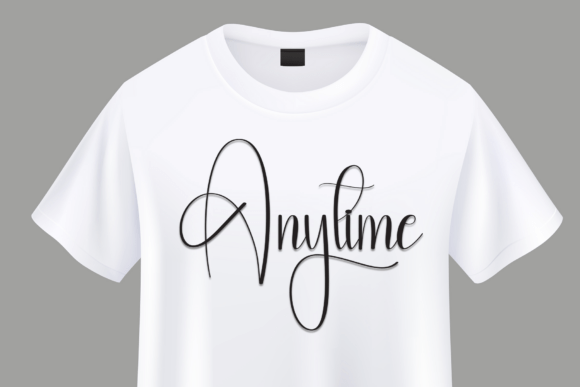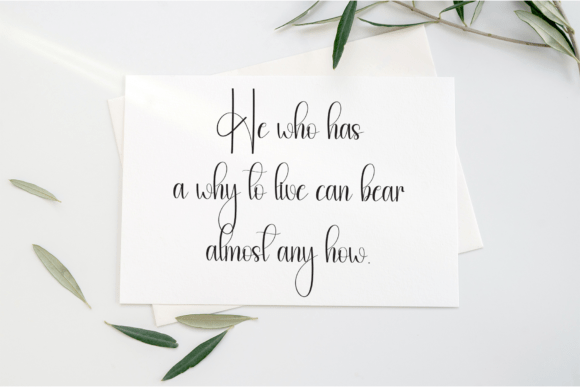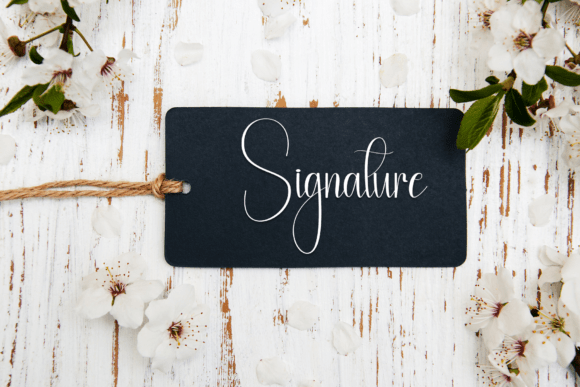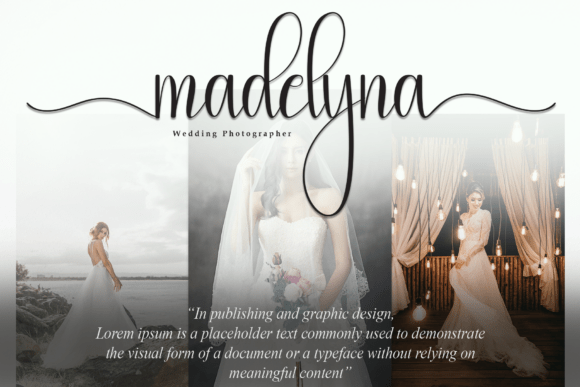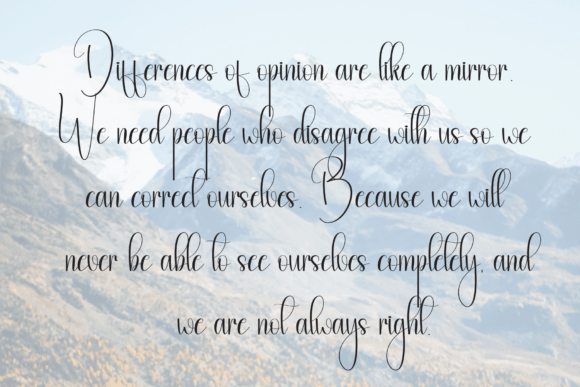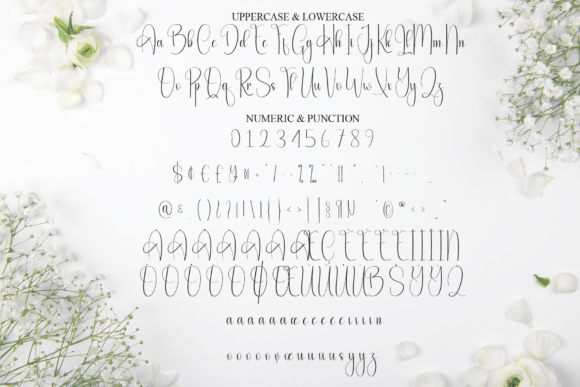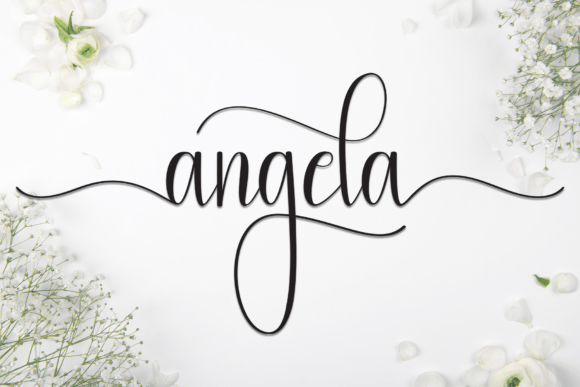
Discover the Elegance of Angela Font: A Stylish Handwritten Script Font
Are you looking for a font that can add a touch of modern elegance and playfulness to your designs? Look no further than Angela Font, a beautiful handwritten script font that is perfect for a variety of creative projects. In this article, we’ll take a closer look at the features and benefits of Angela Font, and explore how it can elevate your designs to the next level.
What is Angela Font?
Angela Font is a stylish handwritten script font that blends modern elegance with a playful touch. Its fluid strokes and charming curves bring a personal feel to any design, making it perfect for projects that require a touch of sophistication and creativity. Whether you’re designing a logo, packaging, or invitation, Angela Font is the perfect choice.
Key Features of Angela Font
So, what makes Angela Font so special? Here are some of its key features:
- Fluid Strokes: Angela Font features fluid strokes that give it a natural, handwritten feel.
- Charming Curves: The font’s charming curves add a touch of elegance and sophistication to any design.
- Modern Elegance: Angela Font blends modern elegance with a playful touch, making it perfect for a variety of creative projects.
- Personal Feel: The font’s personal feel makes it perfect for projects that require a touch of warmth and personality.
Benefits of Using Angela Font
So, why should you choose Angela Font for your next project? Here are some of the benefits of using this beautiful font:
- Adds Warmth and Sophistication: Angela Font adds warmth and sophistication to any design, making it perfect for projects that require a touch of elegance.
- Perfect for Logos and Branding: The font’s unique and stylish design makes it perfect for logos and branding projects.
- Ideal for Packaging and Invitations: Angela Font is also ideal for packaging and invitations, adding a touch of creativity and personality to any project.
- Easy to Read: The font is easy to read, making it perfect for projects that require a clear and concise message.
How to Use Angela Font in Your Designs
Angela Font is a versatile font that can be used in a variety of creative projects. Here are some ideas for using this beautiful font:
- Logos and Branding: Use Angela Font to create a unique and stylish logo for your business or brand.
- Packaging: Add a touch of elegance and sophistication to your packaging designs with Angela Font.
- Invitations: Use Angela Font to create beautiful and elegant invitations for weddings, parties, and other special events.
- Social Media Graphics: Add a touch of personality and style to your social media graphics with Angela Font.
Tips for Getting the Most Out of Angela Font
Here are some tips for getting the most out of Angela Font:
- Experiment with Different Sizes: Experiment with different sizes and styles to find the perfect look for your project.
- Pair with Other Fonts: Pair Angela Font with other fonts to create a unique and stylish design.
- Use in Combination with Images: Use Angela Font in combination with images to add a touch of personality and style to your design.